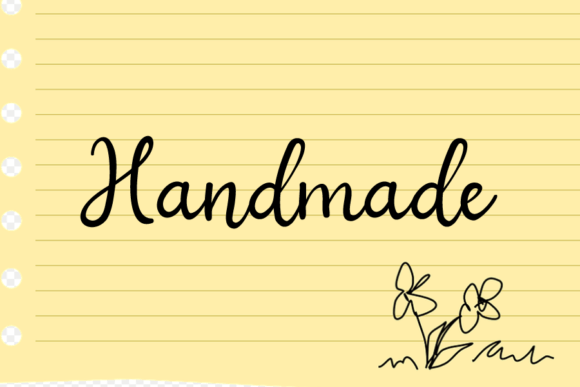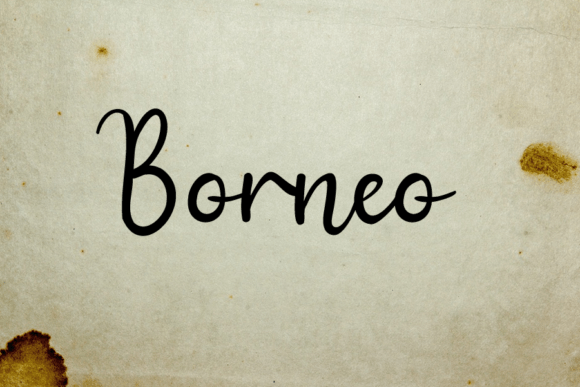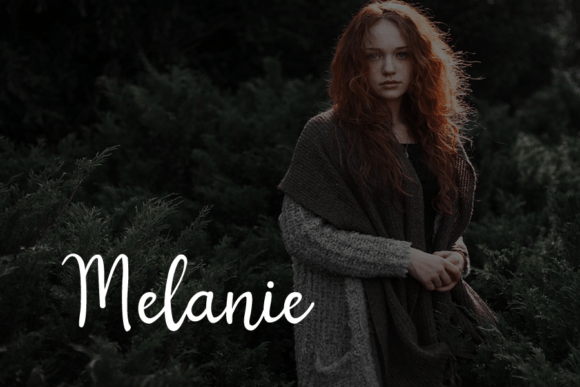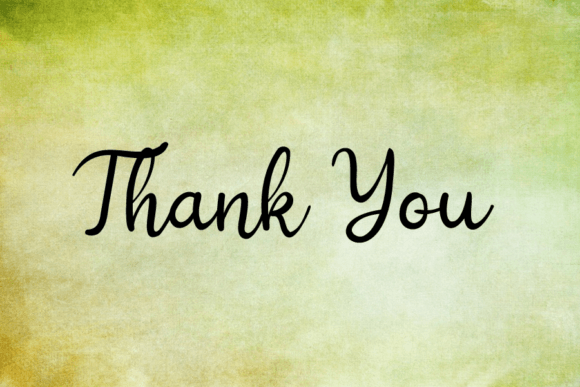
Bigger Than Just a Font
Have you ever stared at a blank page, waiting for the perfect idea to strike? That’s where I was when I stumbled upon Bigger Font. It was one of those magical moments where everything clicked – the words flowed, the design came alive, and my creative juices started to dance.
Bigger Font is more than just a pretty face; it’s a versatile tool designed to add a touch of whimsy to your most imaginative projects. With its playful, handwritten characters, it’s the perfect companion for designers looking to create something truly unique. By incorporating Bigger Font into your designs, you’ll notice how it elevates your ideas and makes them stand out in a crowded space.
Bigger Font Key Features
Bigger Font Review
Bigger Font: A Practical Application Guide
Getting the Most Out of Bigger Font
To get the most out of a bigger font, use it to draw attention to important information, such as headings or titles. You can also use it to create a visual hierarchy in your design, making it easier for readers to scan and understand your content.
Exploring Bigger Font Creativity
Project 1: Typography Mural
Create a visually striking mural using Bigger Font as the primary design element. This project can be a large-scale installation or a smaller-scale art piece.